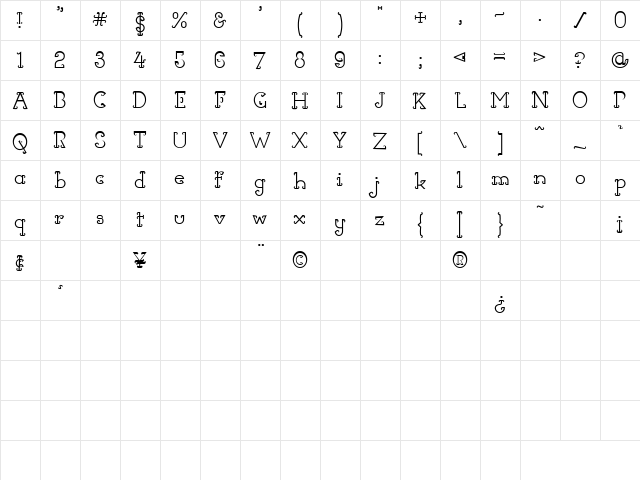
Horns of Dilemma Regular
Design Context for Horns of Dilemma Typeface
Horns of Dilemma offers clean, dependable letterforms without strong stylistic allegiance, making it a practical choice for designers who need flexibility.